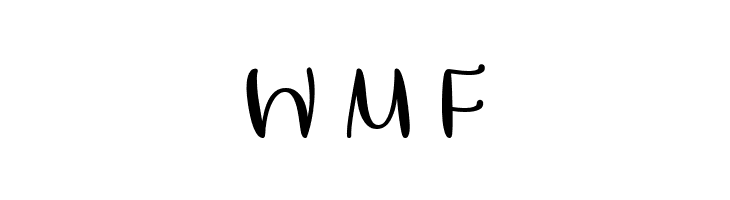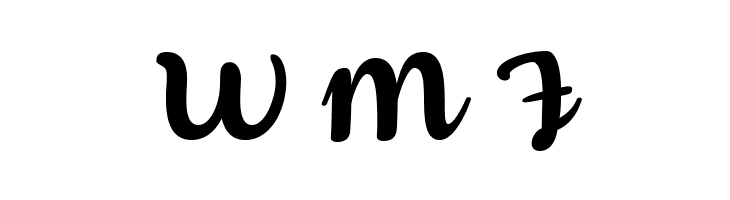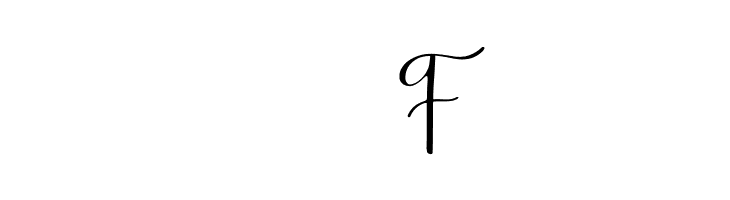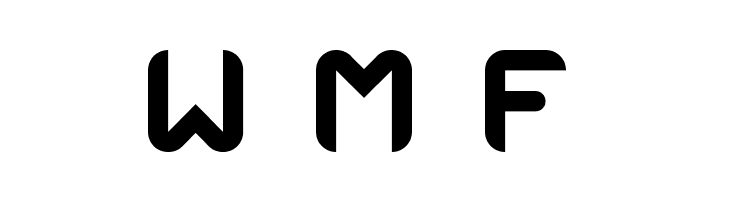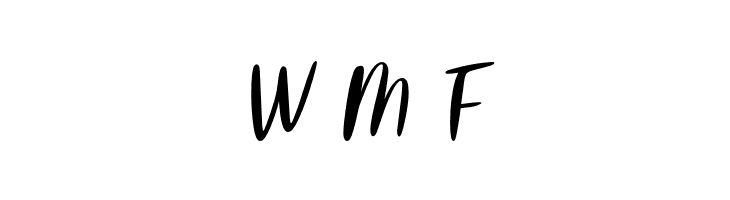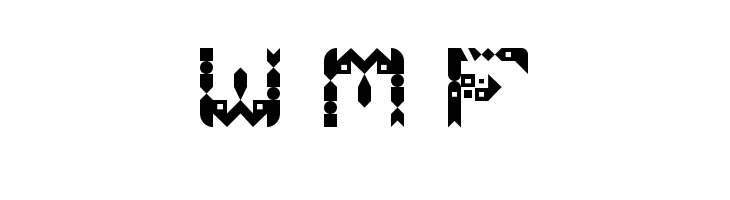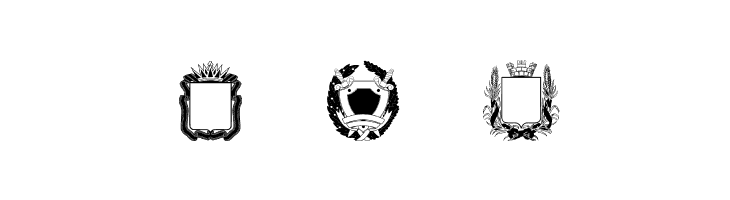
A bold, decorative font with vintage circus-inspired detailing.
An edgy, hand-drawn font with sharp, elongated strokes and a distressed texture.
A dynamic, edgy font with sharp, angular strokes and an italicized appearance.
A lively, expressive handwritten script with flowing, cursive letterforms.
A playful, handwritten font with rounded edges and a lively, informal style.
A playful, handwritten font with rounded, irregular characters.
A playful, handwritten font with rounded edges and a casual style.
A bold, decorative font with star-like and geometric details, perfect for playful designs.
A bold, hand-drawn font with an artistic and dynamic style.
A whimsical, elegant font with tall, narrow, hand-drawn characters.
A bold, italic font with a modern and dynamic style.
A thin, modern font with geometric influences and clean lines.
A modern, clean sans-serif font with geometric uniformity and excellent readability.
A bold, modern typeface with clean lines and geometric shapes.
A thin, modern italic font with a sleek, elegant design.
A modern, light sans-serif font with low contrast and clean lines.
A bold, modern sans-serif font with geometric shapes and balanced spacing.
A modern, dotted decorative font with a playful and unique style.
A playful, handwritten font with tall, narrow letters and decorative symbols.
Ornate heraldic shields and crests in a decorative display style.
A bold, elegant script font with dynamic curves and a slight slant.
A graceful script font with a flowing, cursive style.
A bold, elegant script font with flowing, cursive letterforms.
A playful, narrow font with subtle curves and balanced proportions.
A bold, hand-painted style font with an expressive, artistic flair.
A modern, clean sans-serif font with balanced weight and excellent readability.
A modern, condensed sans-serif font with low contrast and clean lines.
A clean, extra light, and modern sans-serif font with geometric shapes.
A modern, extra condensed font with medium weight and balanced design.
An elegant and refined serif font with thin, delicate strokes.
A condensed, semi-bold serif font with a modern and structured appearance.